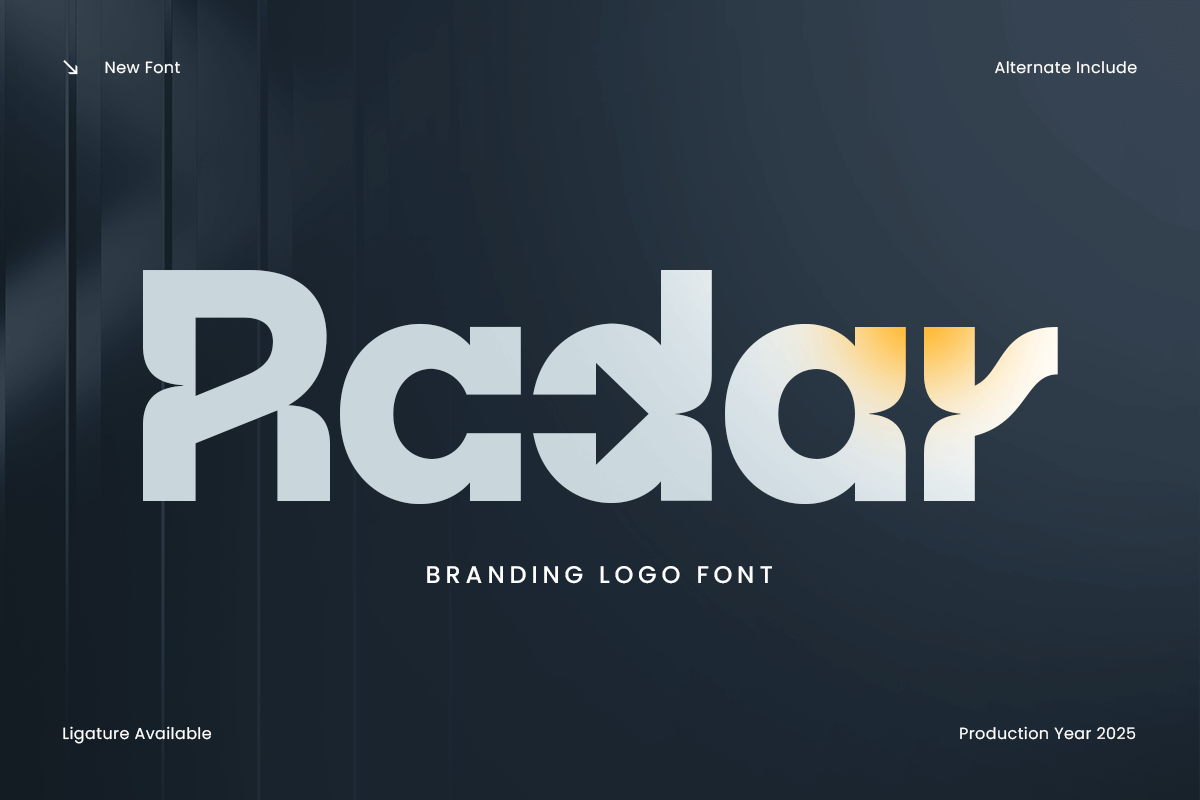
Radar
-Branding Logo Font
Radar - Branding Logo Font
Radar is a branding logo font crafted with precision, balance, and a modern minimalist aesthetic. Its clean geometry and bold simplicity make it perfect for building strong, memorable brand identities that stand out across digital and print media.
With sharp lines and refined shapes, Radar delivers a confident and professional look suitable for tech companies, startups, fashion labels, creative studios, and corporate brands. Its distinctive structure makes every logo, headline, or packaging design feel purposeful, stylish, and visually striking.
Whether you're creating a modern identity system, website header, or editorial layout, Radar offers clarity, elegance, and strong versatility — all essential qualities for premium branding.
Radar – Branding Logo Font Features
• Modern geometric design ideal for bold branding
• Perfect for logos, packaging, editorial titles, and digital interfaces
• Minimal, clean structure for professional visual identity
• Strong readability across print and screen applications
• OpenType features for enhanced typographic flexibility
Define powerful visual identity with Radar – the ultimate modern logo font for clean, bold, and professional branding. ✨